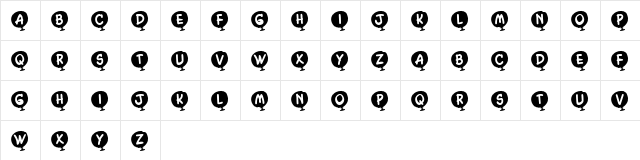
KR Helium Regular
Design Context for KR Helium
KR Helium is a composed and adaptable typeface that performs quietly and consistently across a wide range of design contexts.